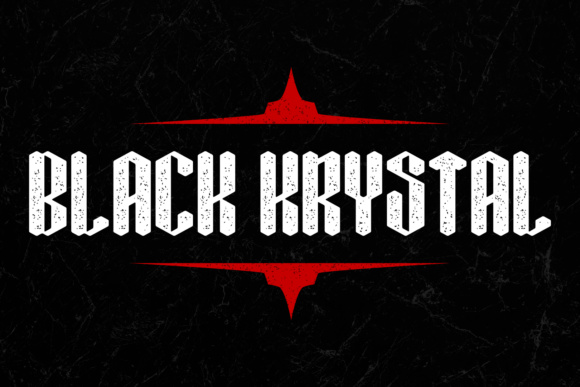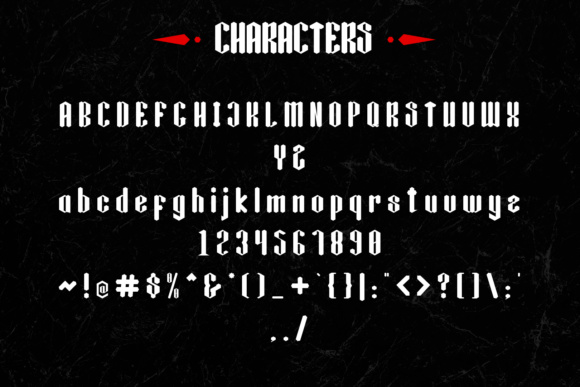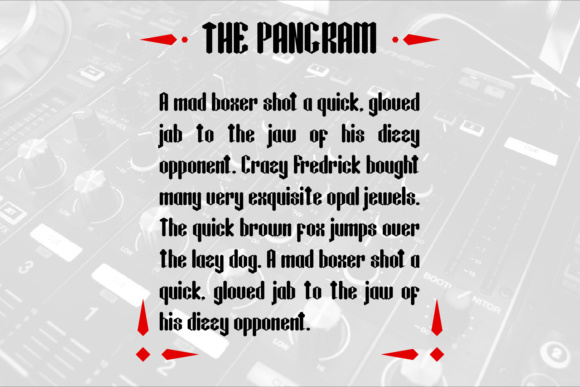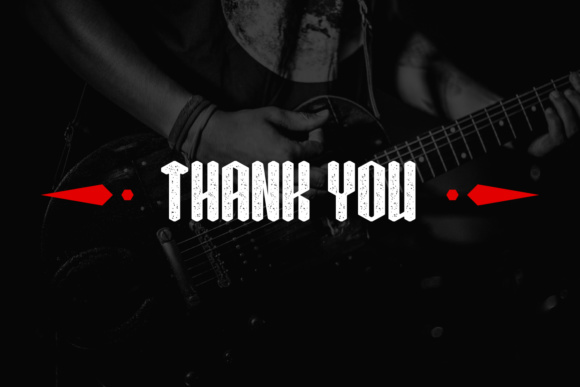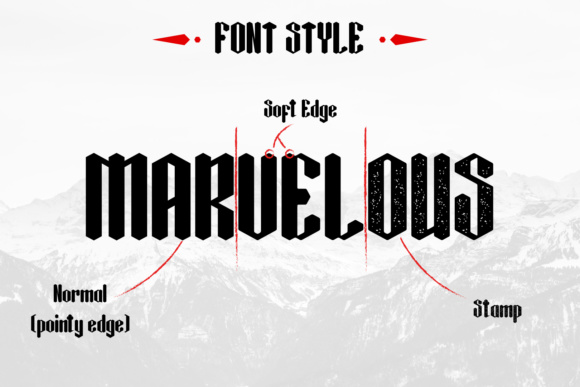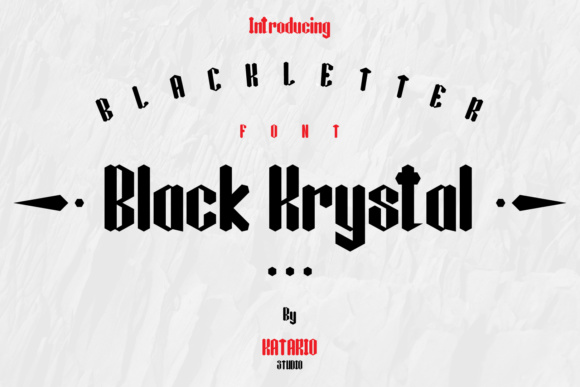
Introducing Black Krystal Font: Elevate Your Designs with Elegance and Sophistication
In the world of typography, a font can make or break a design. It’s the foundation upon which creativity is built, and the right choice can elevate a project from ordinary to extraordinary. For designers and crafters seeking a typeface that exudes class, elegance, and a touch of vintage charm, Black Krystal Font is an exceptional choice. This stunning new font is designed to bring a clean, sophisticated aesthetic to a wide range of creative projects, making it an indispensable tool in your design arsenal.
The Essence of Black Krystal Font
Black Krystal Font is characterized by its classy, elegant, clean, and vintage feel. Each letterform is meticulously crafted to convey a sense of sophistication and timelessness, making it perfect for designers who aim to create visually appealing and memorable designs. The font’s versatility is one of its standout features, allowing it to be used across various platforms and projects.
Ideal Applications for Black Krystal Font
The versatility of Black Krystal Font makes it suitable for a multitude of creative applications. Here are some of the areas where this font truly shines:
- Street Wear: Give your streetwear brand or designs an edge with the stylish and modern appeal of Black Krystal Font. It’s perfect for creating logos, branding materials, and even apparel.
- Typography Designs: Whether you’re working on posters, flyers, or digital graphics, Black Krystal Font provides the elegance and sophistication needed to make your typography designs stand out.
- Vintage Art: For projects that require a vintage touch, Black Krystal Font’s classic feel is unmatched. It adds a nostalgic charm to any design, making it ideal for vintage-inspired art and marketing materials.
- T-Shirt Designs: Create eye-catching and stylish t-shirt designs with Black Krystal Font. Its clarity and impact ensure that your designs will look great on apparel.
- Logotypes: A good logotype can define a brand’s identity. Black Krystal Font, with its elegant and clean lines, is perfect for crafting unique and memorable logos.
- Packaging: For product packaging that stands out on shelves, Black Krystal Font offers a sophisticated look that can elevate the perceived value of any product.
Why Choose Black Krystal Font?
Choosing Black Krystal Font for your design projects comes with numerous benefits:
- Versatility: Its wide range of applications makes it a valuable addition to any designer’s toolkit.
- Elegance: The font’s elegant design adds a touch of sophistication to any project.
- Readability: Despite its stylish appearance, Black Krystal Font maintains excellent readability, making it suitable for both headlines and body text.
- Uniqueness: Stand out from the crowd with a font that brings a unique aesthetic to your designs.
Tips for Using Black Krystal Font Effectively
To maximize the impact of Black Krystal Font in your designs, consider the following tips:
- Experiment with Sizes: Play with different font sizes to create visual hierarchy and emphasize key messages.
- Combine with Other Fonts: Don’t be afraid to pair Black Krystal Font with other typefaces to add contrast and interest to your designs.
- Adjust Line Spacing: Ensure that your text is easy to read by adjusting line spacing according to the project’s requirements.
- Utilize Font Variations: If available, experiment with different font variations (such as bold, italic) to add depth to your design.
| Font Name | Black Krystal Font |
| Author | Katario Studio |
Black Krystal Font is a remarkable addition to the world of typography, offering designers and crafters a versatile, elegant, and clean typeface that can elevate a wide range of creative projects. Its vintage feel, combined with its modern appeal, makes it an excellent choice for anyone looking to add a touch of sophistication to their designs. Whether you’re working on streetwear, typography designs, vintage art, or any other project, Black Krystal Font is sure to enhance your creative output and help you achieve your design goals.